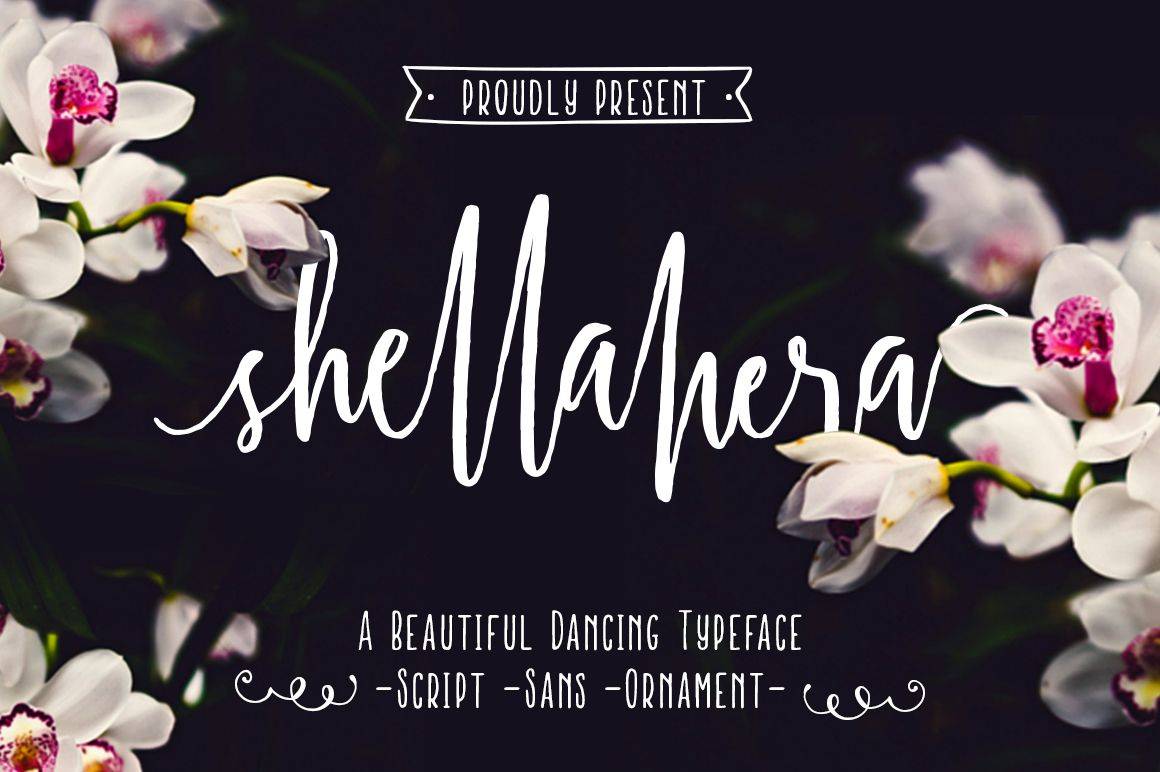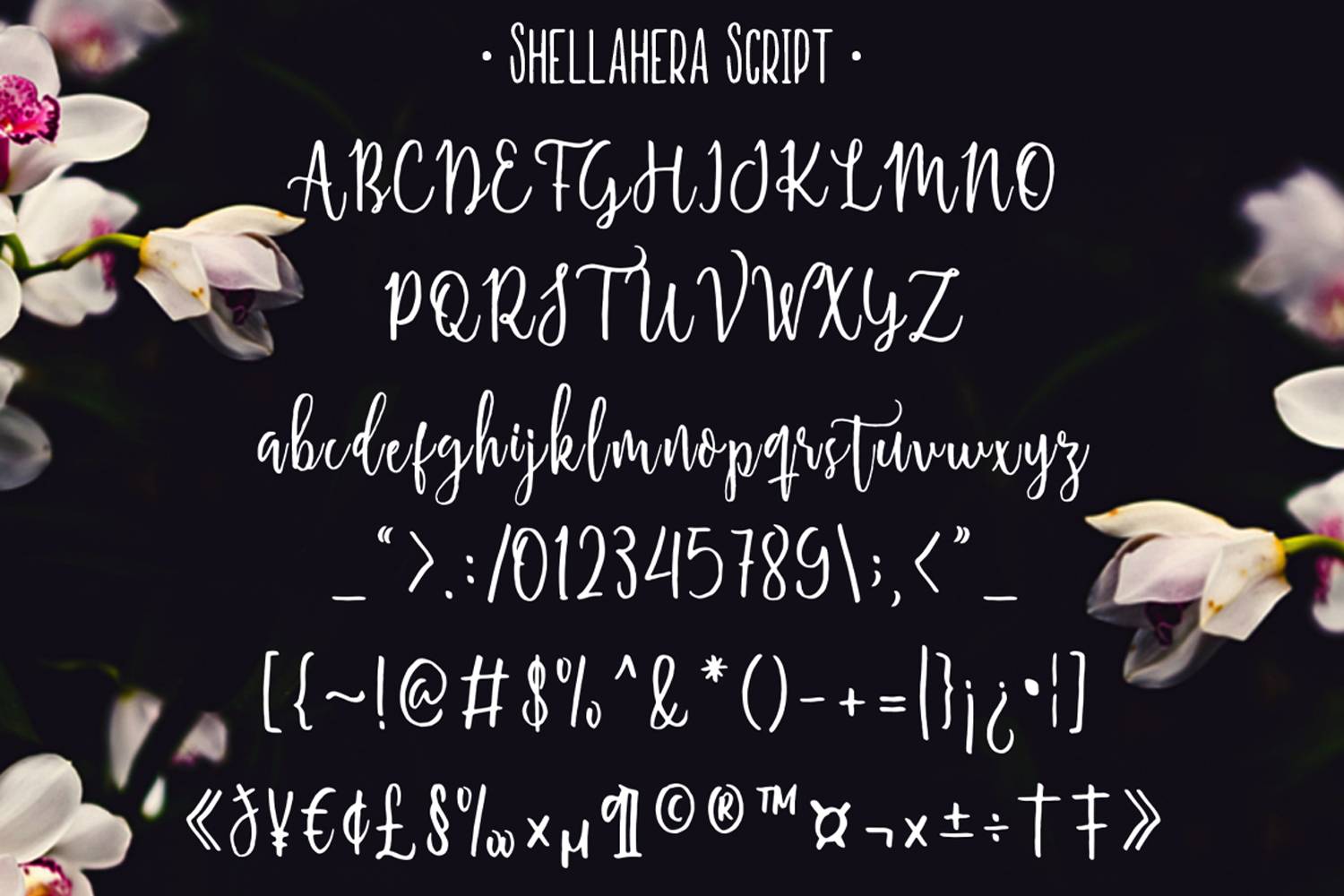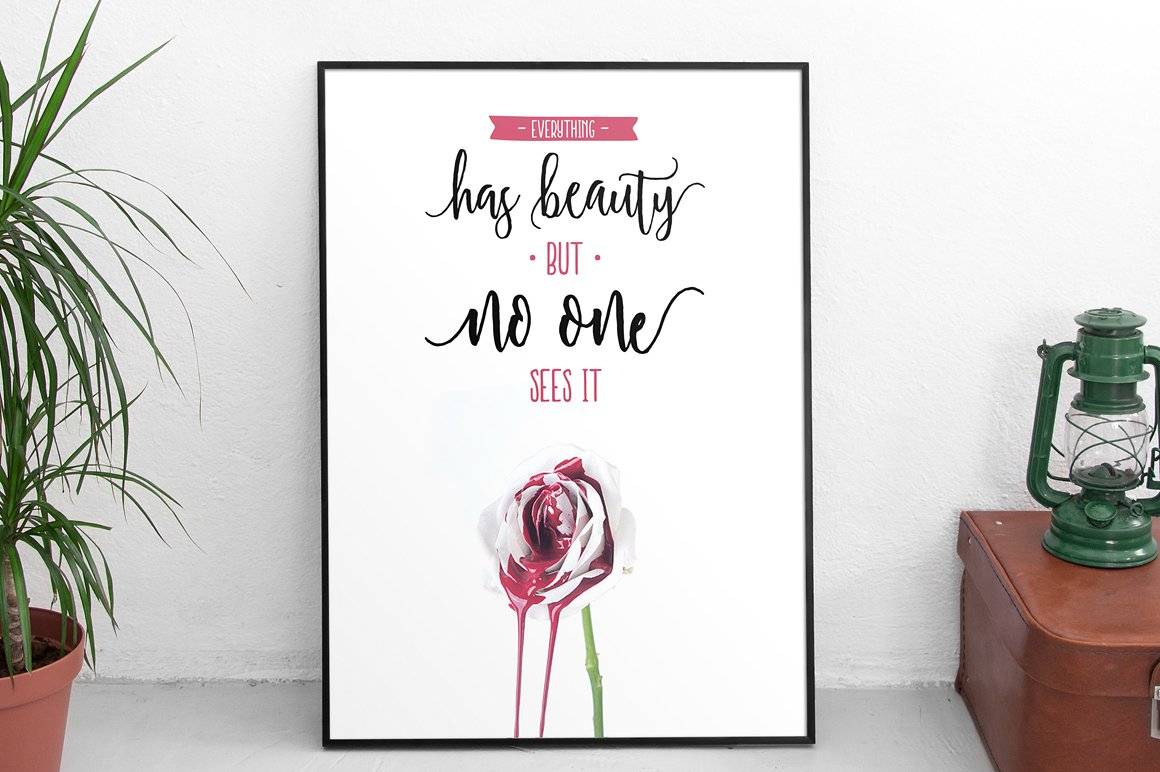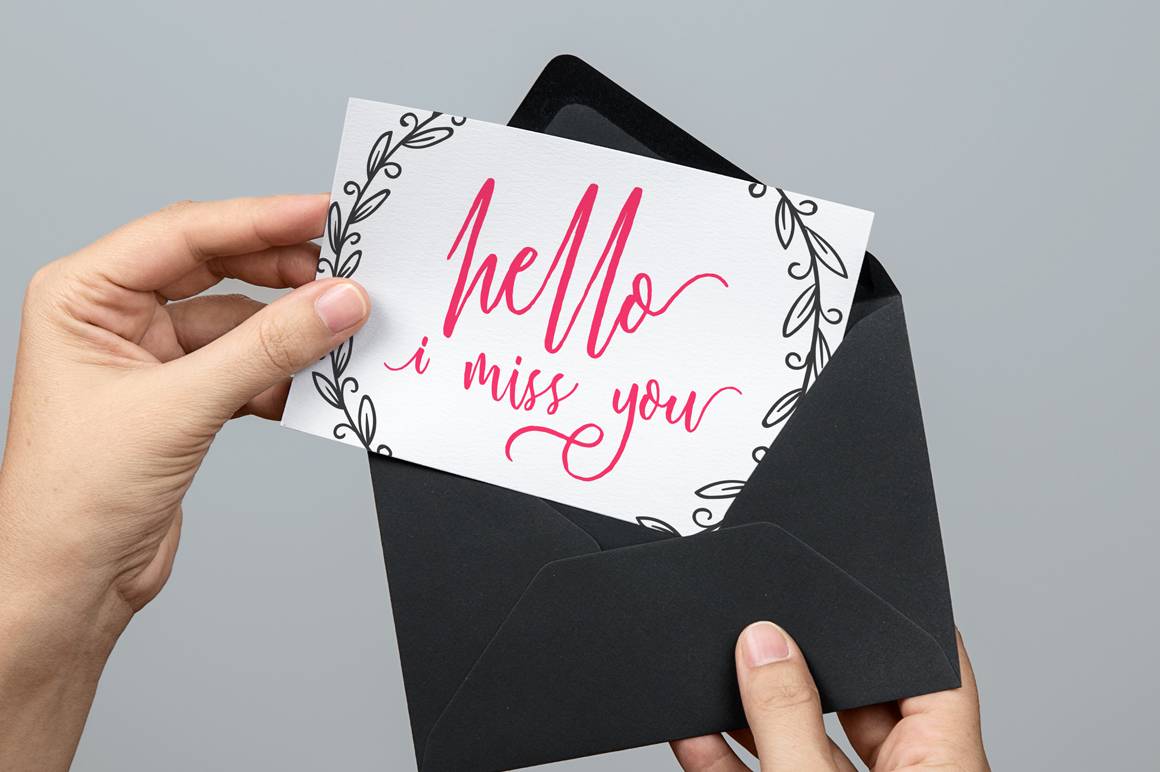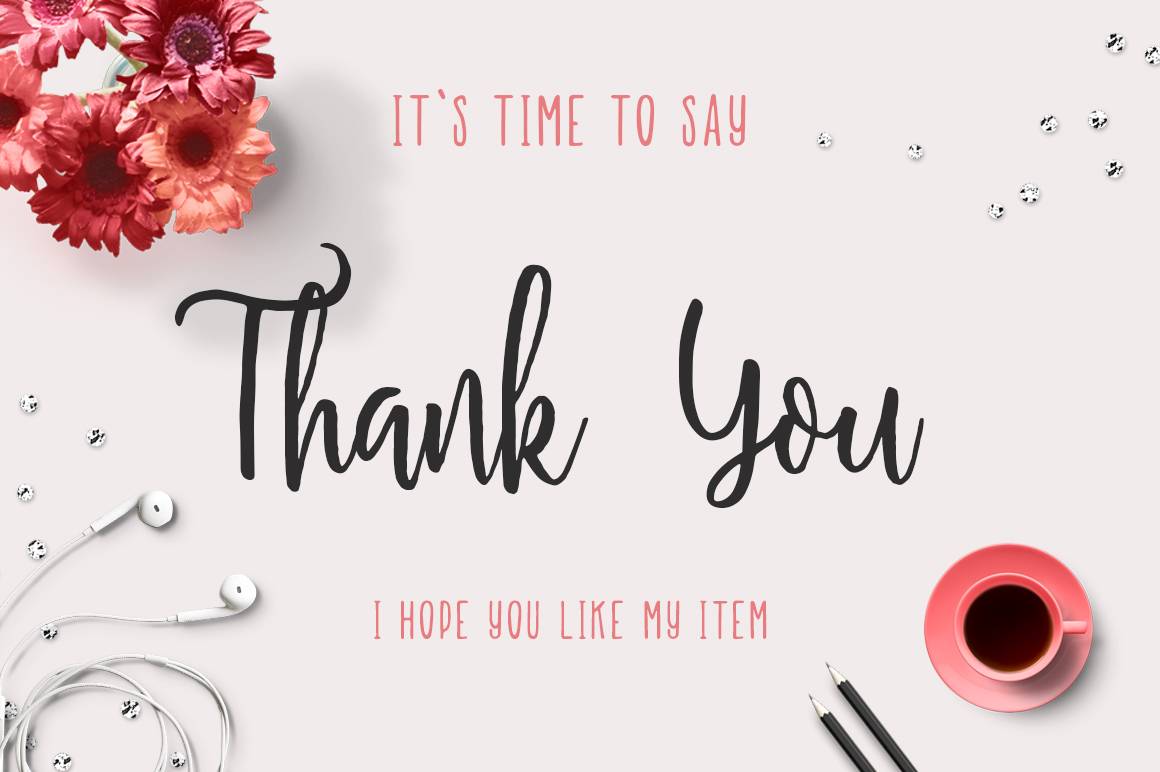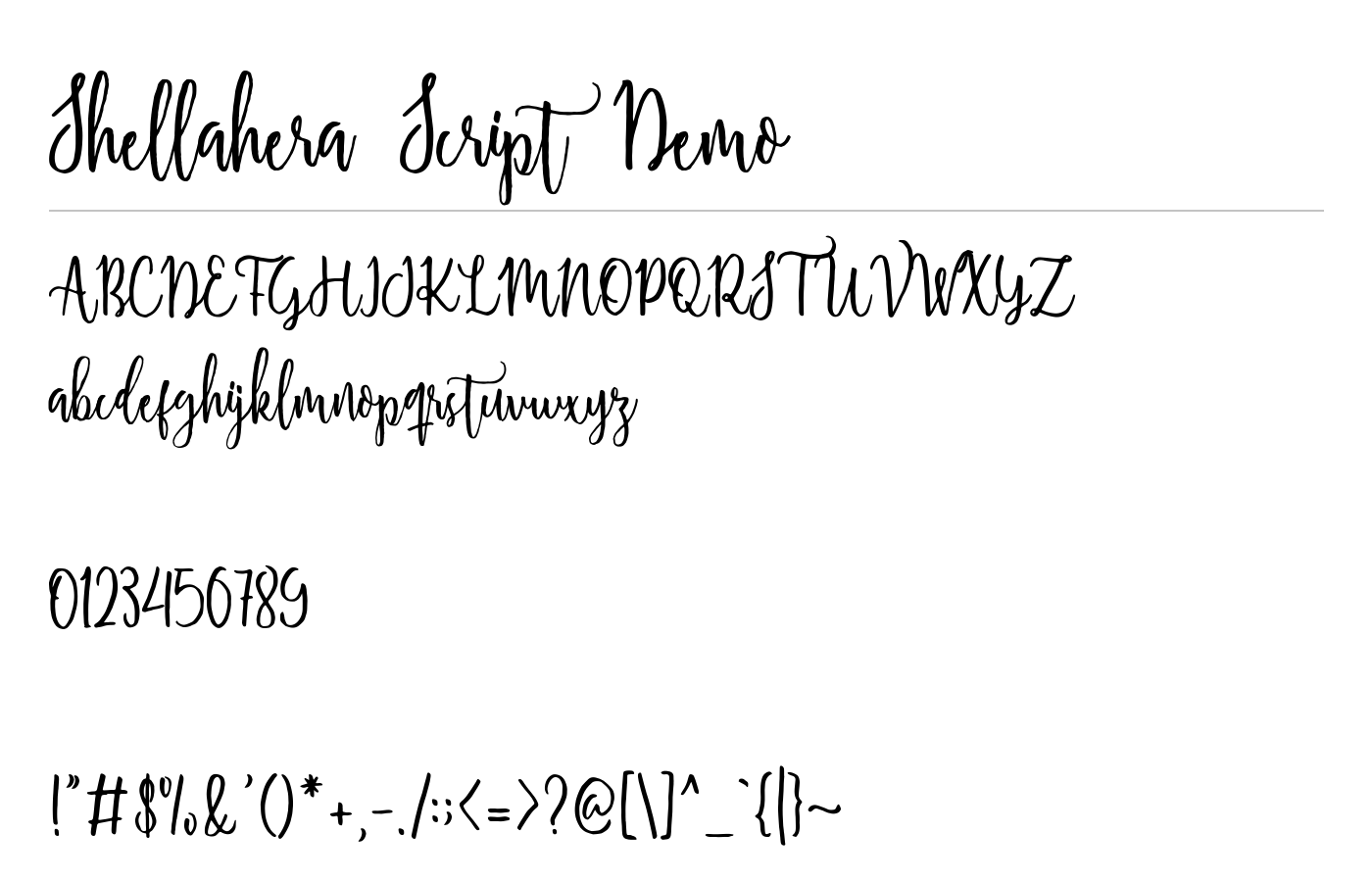
ShellaHera Script Demo is a delicate and charming handwritten script font with a light weight and slender strokes that evoke a warm, personal touch. Its elegant, flowing letterforms with playful swashes and smooth curves make it perfect for creative branding, invitations, and feminine design projects seeking a friendly yet stylish vibe. This font works best in headlines, logos, and decorative text where its unique personality can shine.
ShellaHera Script Demo
About ShellaHera Script Demo
| Font family | ShellaHera Script Demo |
| Designer | Lostvoltype Foundry |